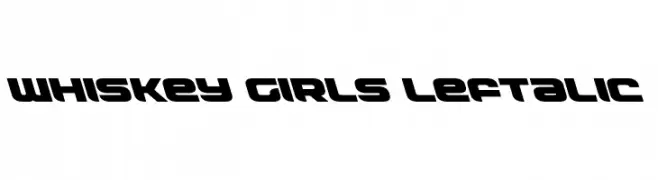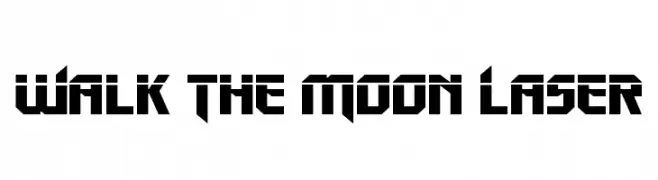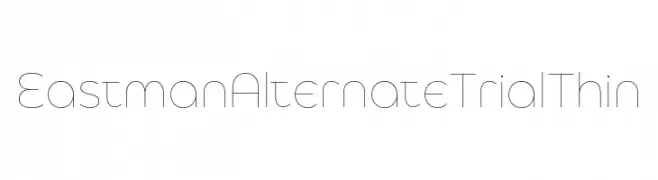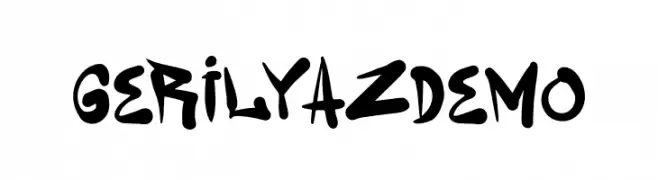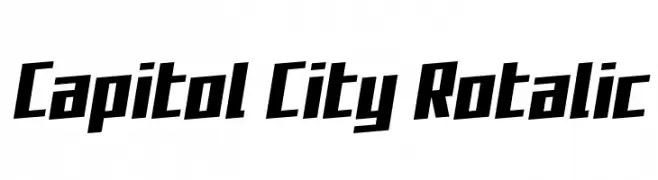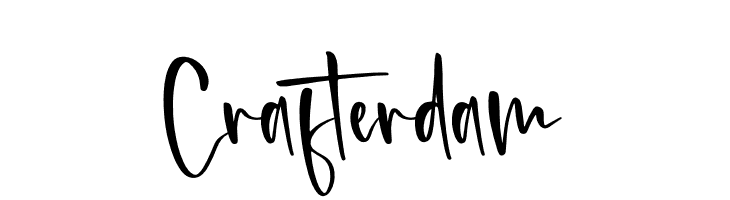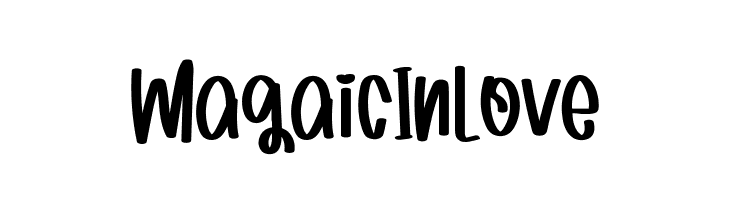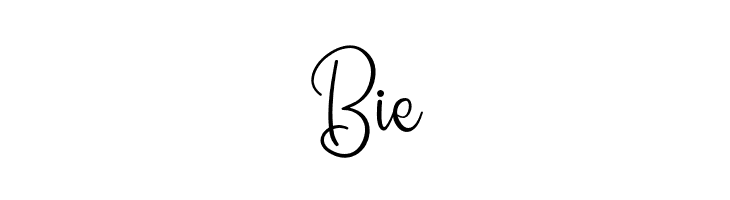
A playful, handwritten font with rounded, consistent strokes and a casual vibe.
A bold, italicized font with a modern and dynamic style.
A modern, backslanted font with thin, elongated characters and a sleek design.
A bold slab serif font with strong, structured characters and uniform stroke width.
A bold, futuristic font with sharp angles and geometric shapes.
A bold, futuristic font with a three-dimensional outline style.
A thin, modern font with clean lines and geometric shapes.
A geometric, outlined font with a modern and technical style.
A bold, dynamic handwritten font with playful, energetic strokes.
A bold, angular font with a dynamic, slanted design.